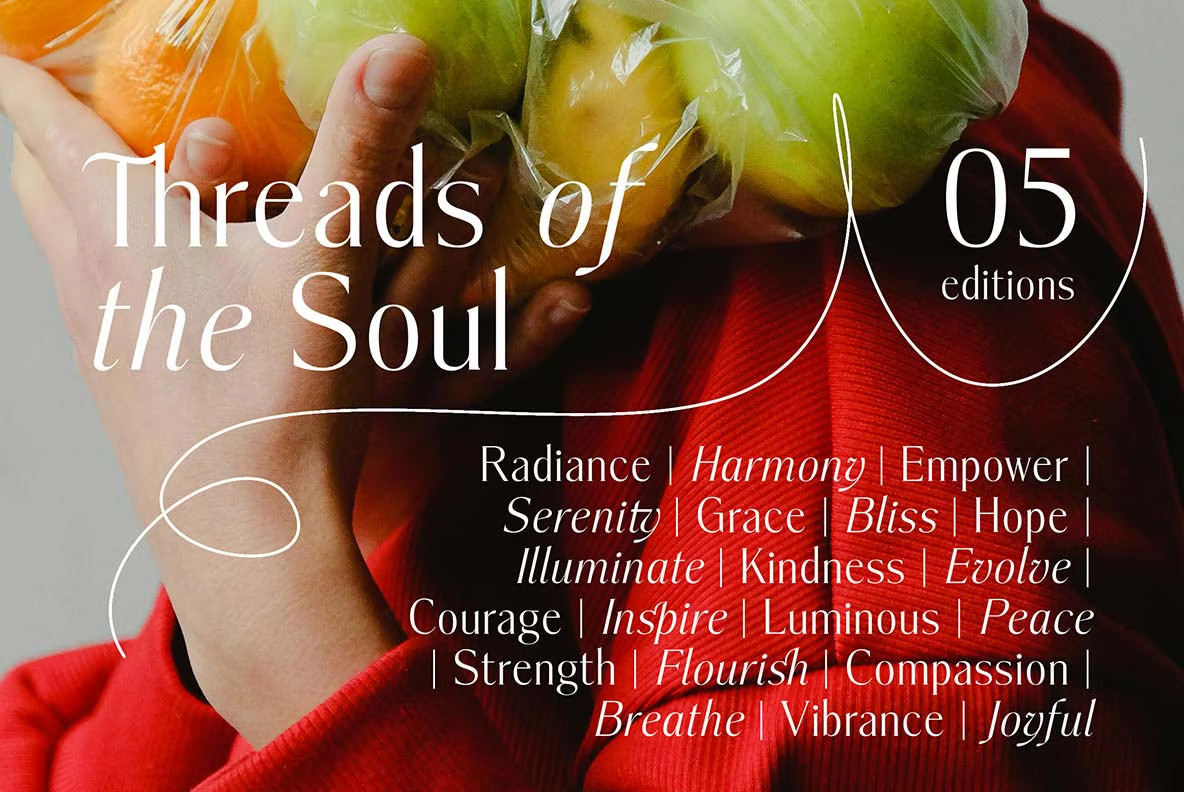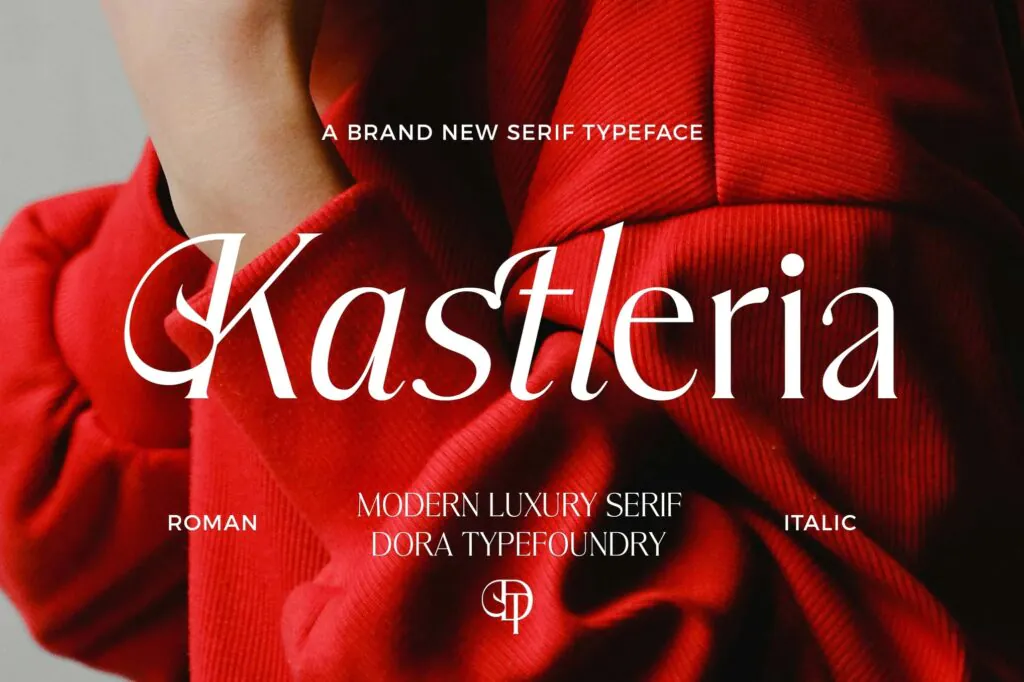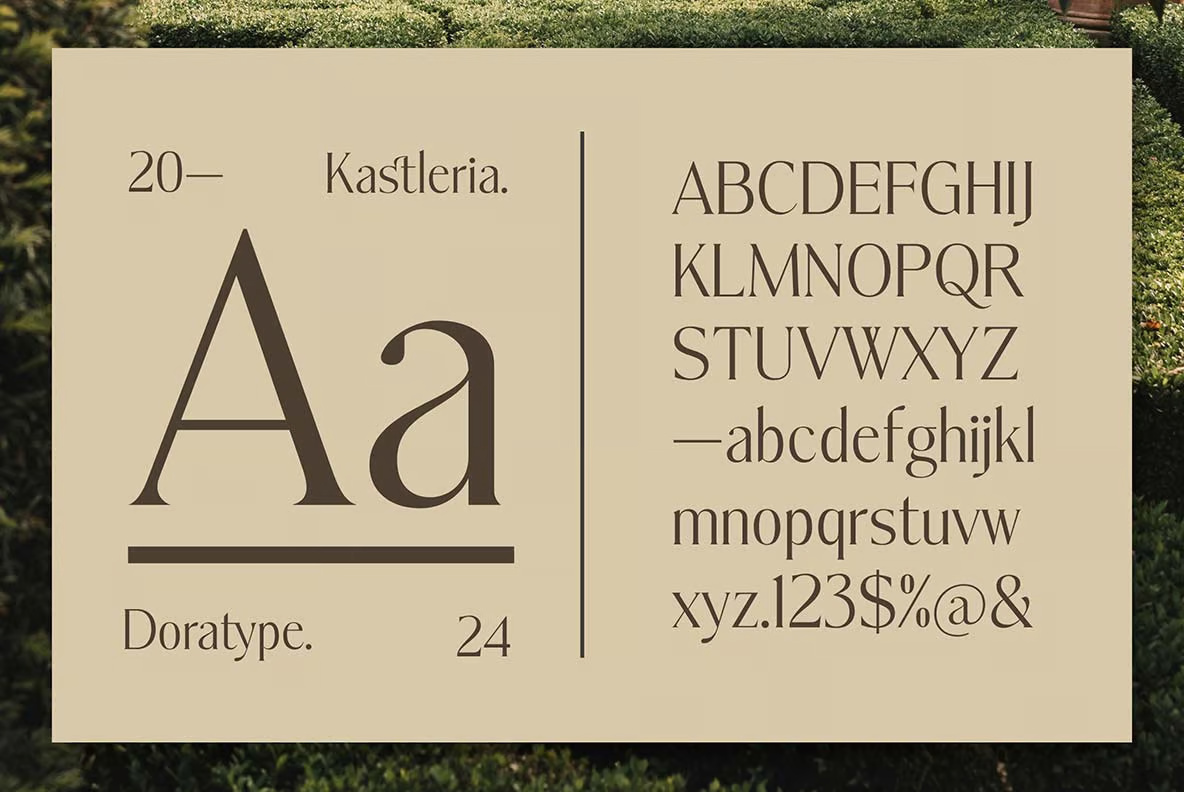
Kastleria Luxury Serif Font
Kastleria is an elegant and sophisticated serif typeface designed to infuse your work with timeless charm and modern flexibility. Featuring a true italic version, it adds a subtle contrast, wrinkle, and refinement to your designs, seamlessly blending classic style with contemporary sensibilities. The clean, sharp lines of Kastleria make it perfect for a wide range of creative projects, from branding and logos to editorial designs, invitations, and more. Whether you’re creating upscale marketing materials, beautiful stationery, or sophisticated online content, Kastleria will elevate your work with its versatile, distinguished look.
Kastleria Luxury Modern Serif Font
Kastleria Luxury Serif Font